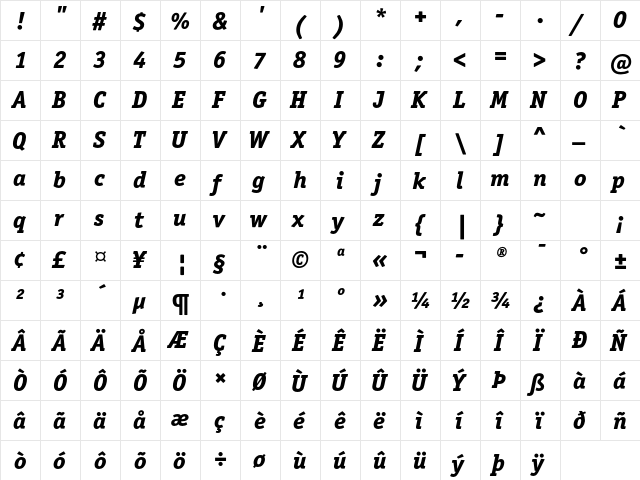
OfficinaSerITCStd ExtraBoldIta Font Preview
OfficinaSerITCStd ExtraBoldIta
| Foundry | International Typeface Corporation |
| Designer | Erik Spiekermann and Ole Schaefer |
Design Context for OfficinaSerITCStd Typeface
OfficinaSerITCStd offers clean, dependable letterforms without strong stylistic allegiance, making it a practical choice for designers who need flexibility. The heavy weight commands attention and anchors typographic hierarchies.